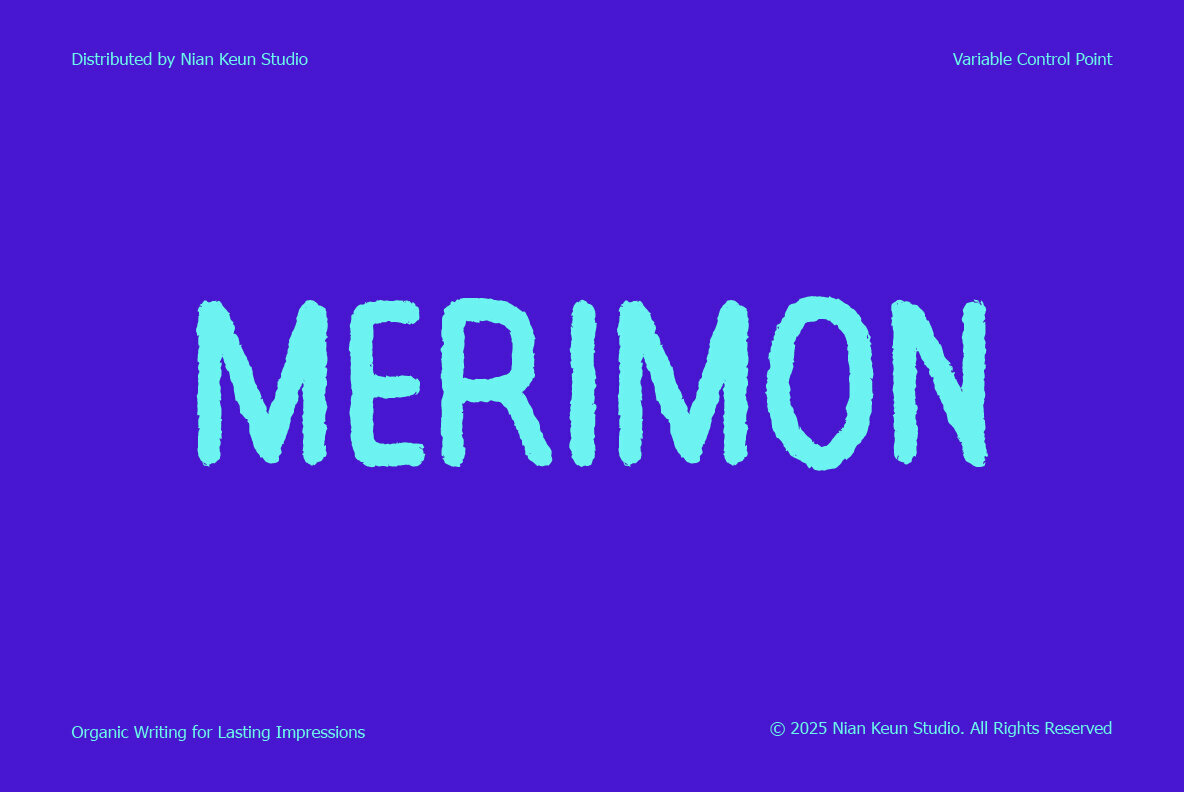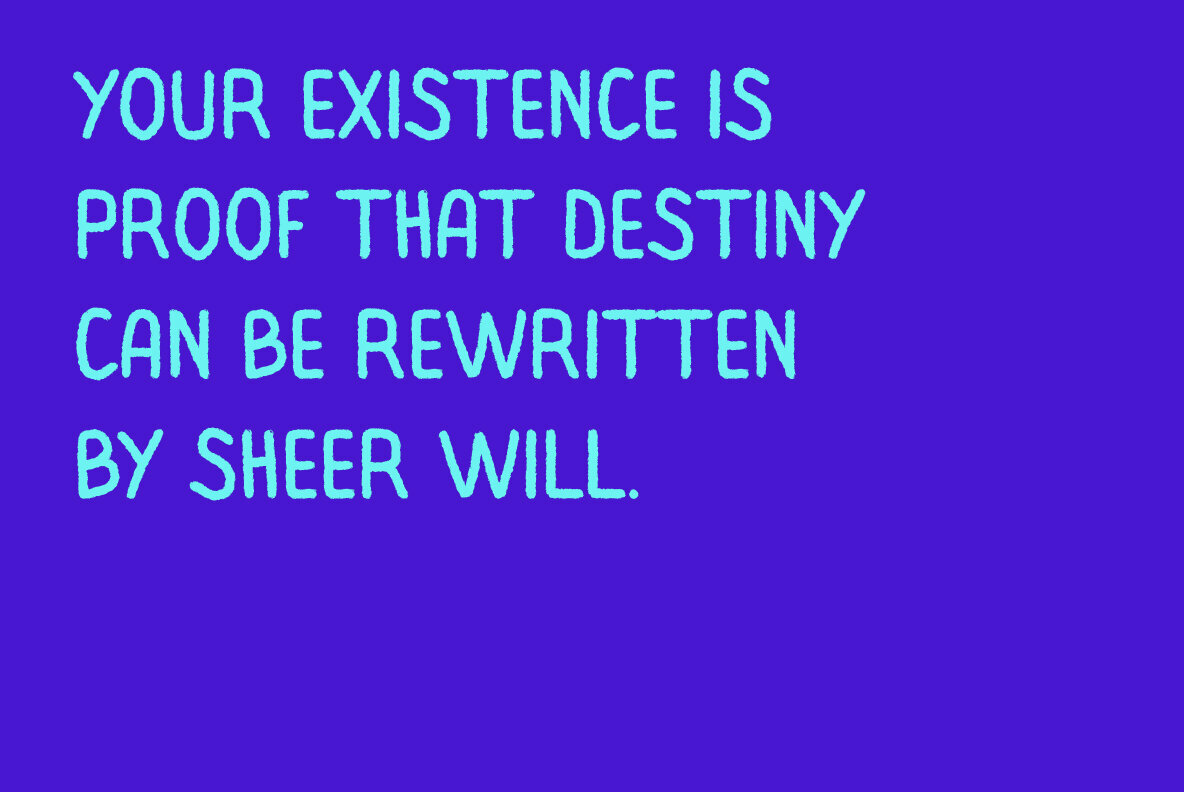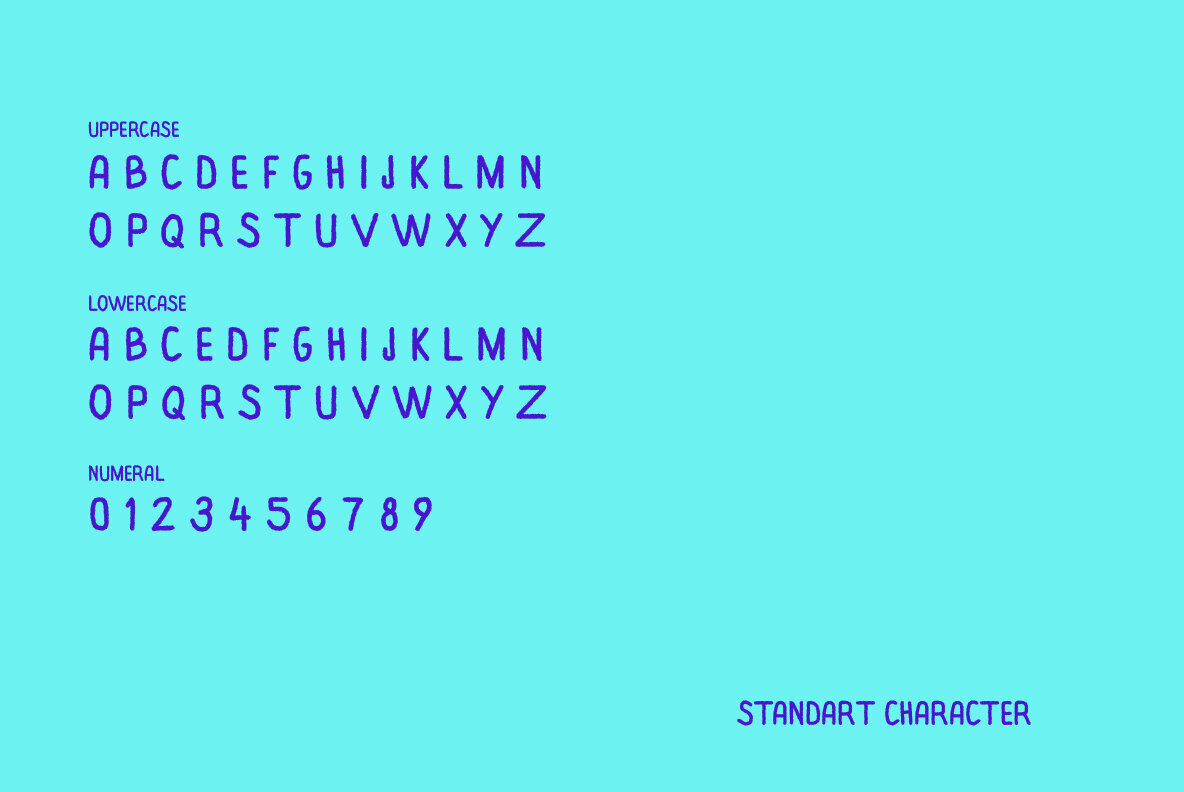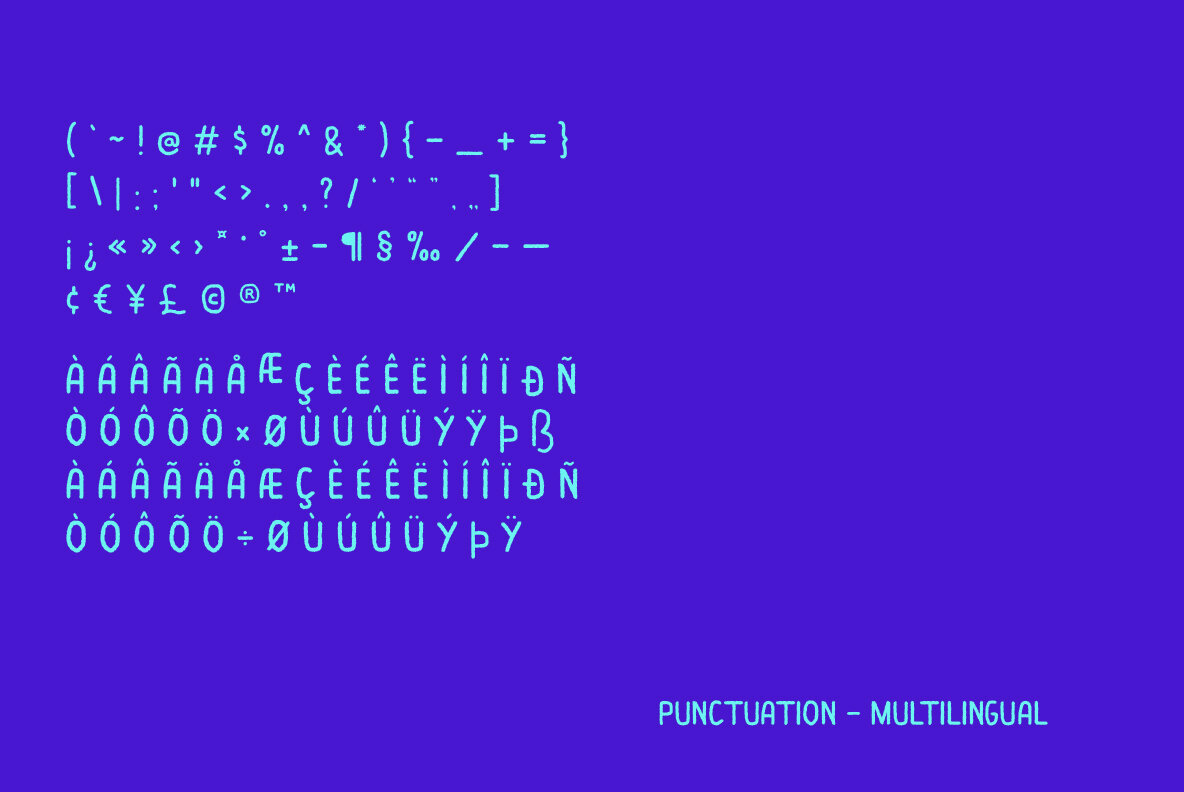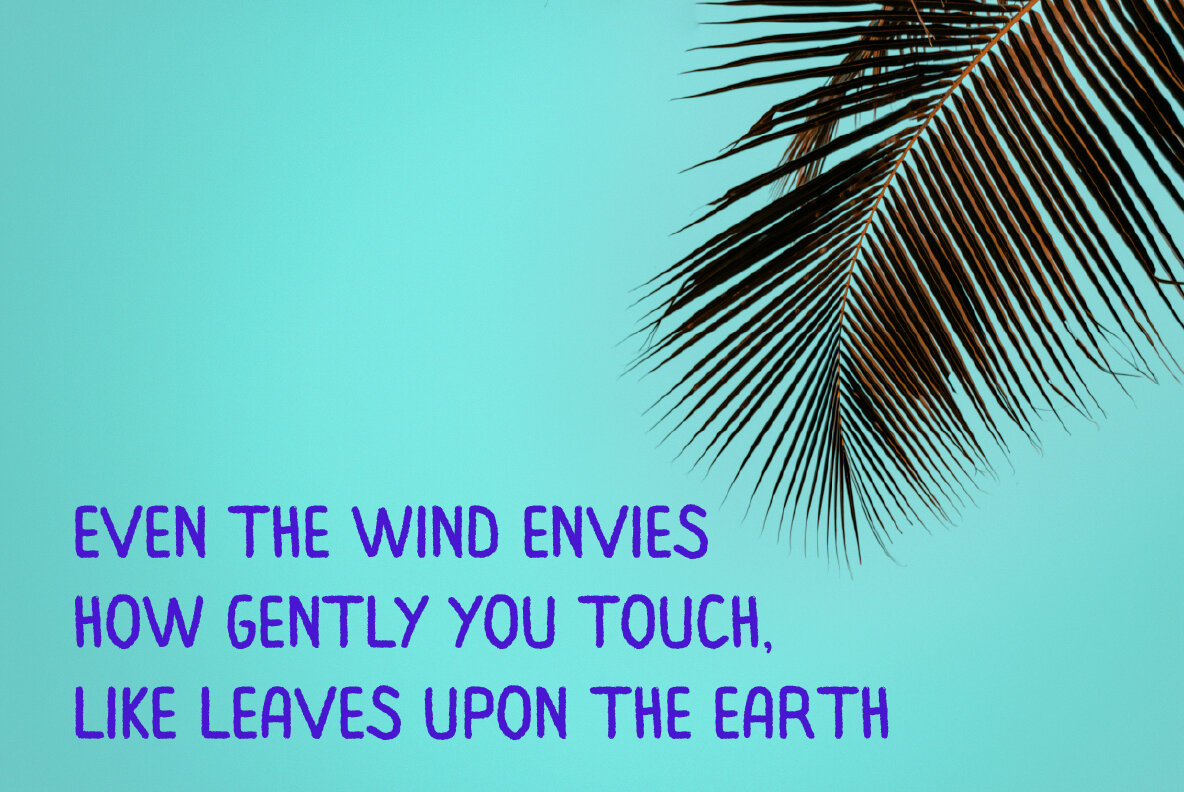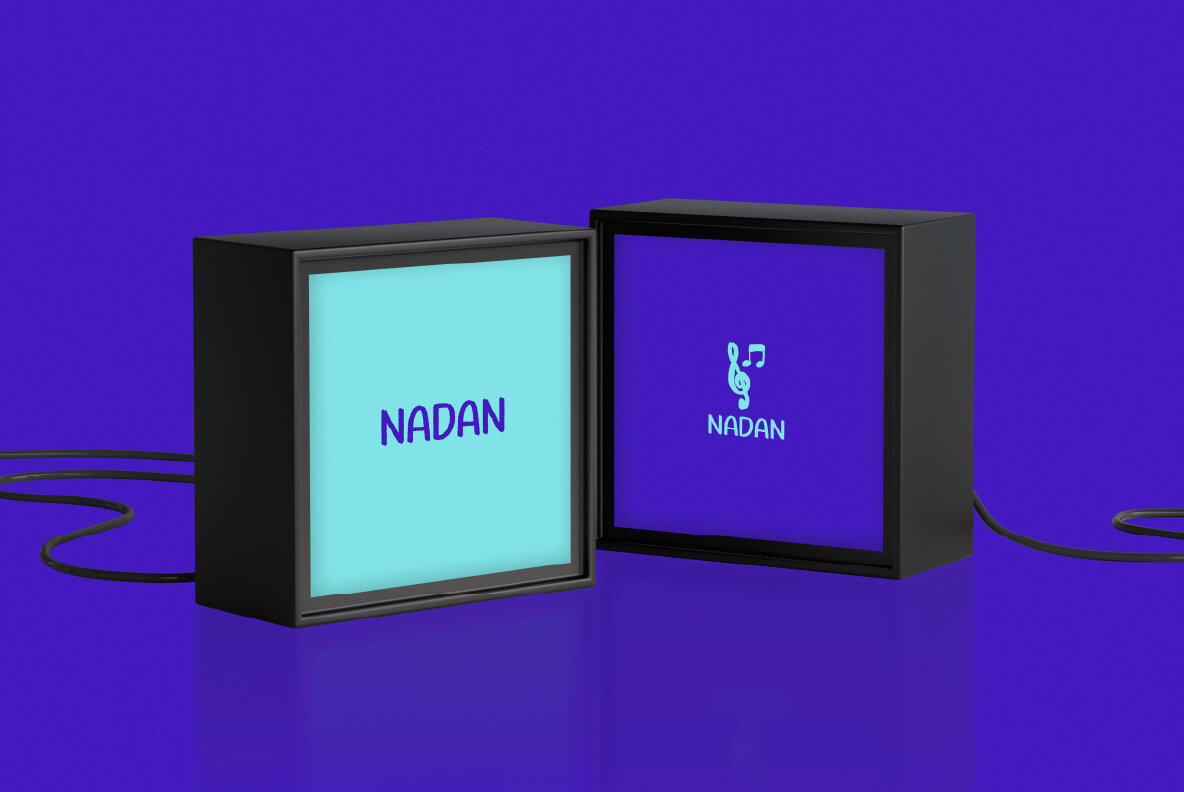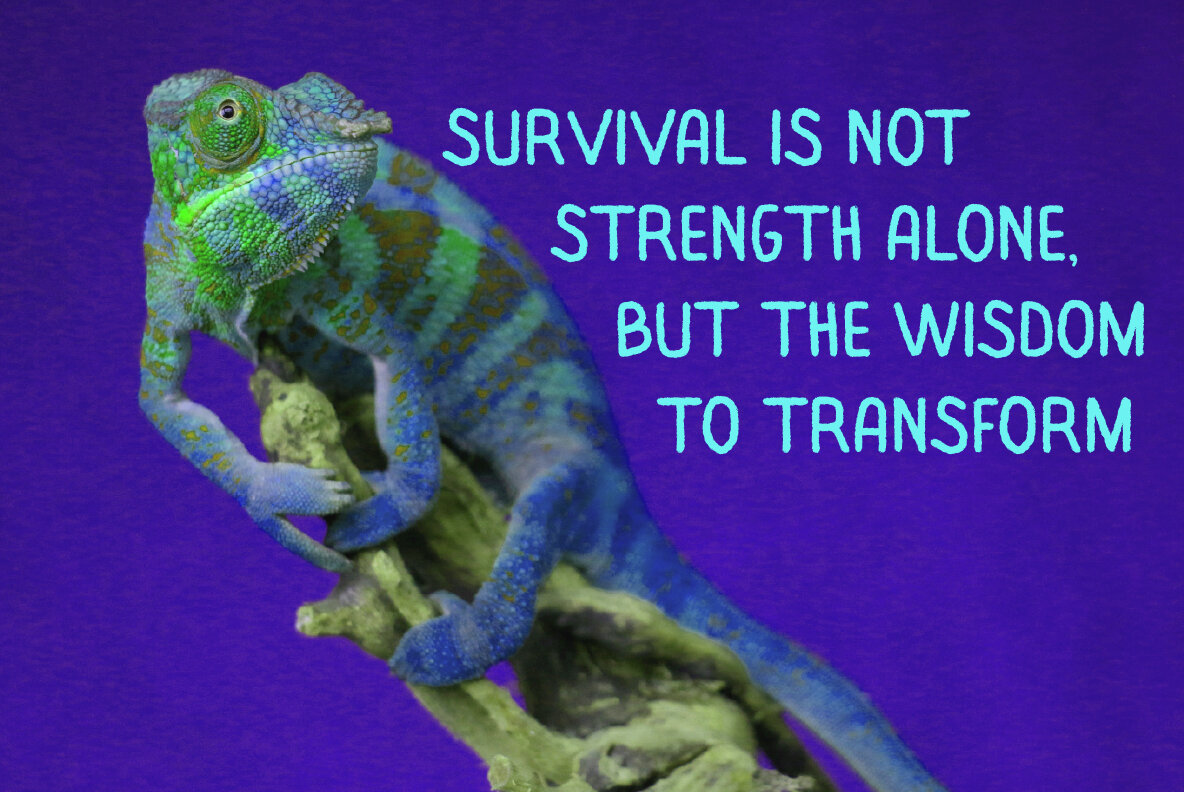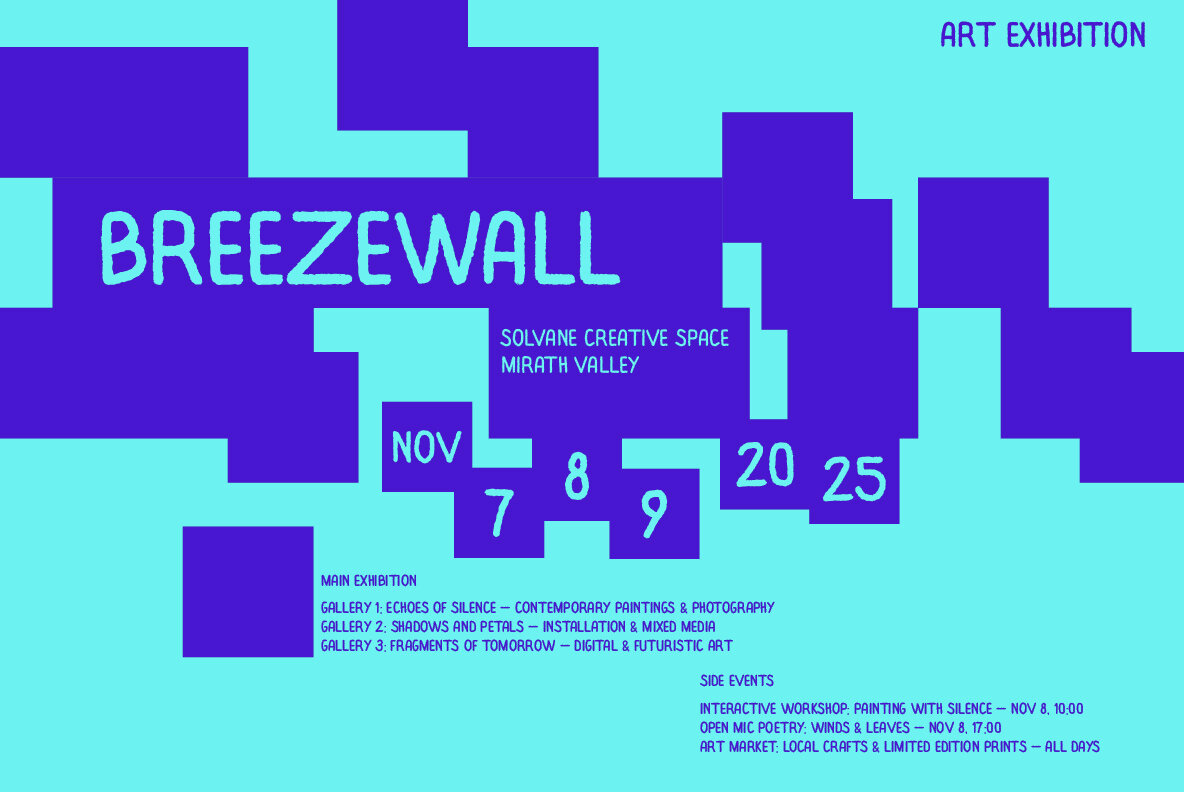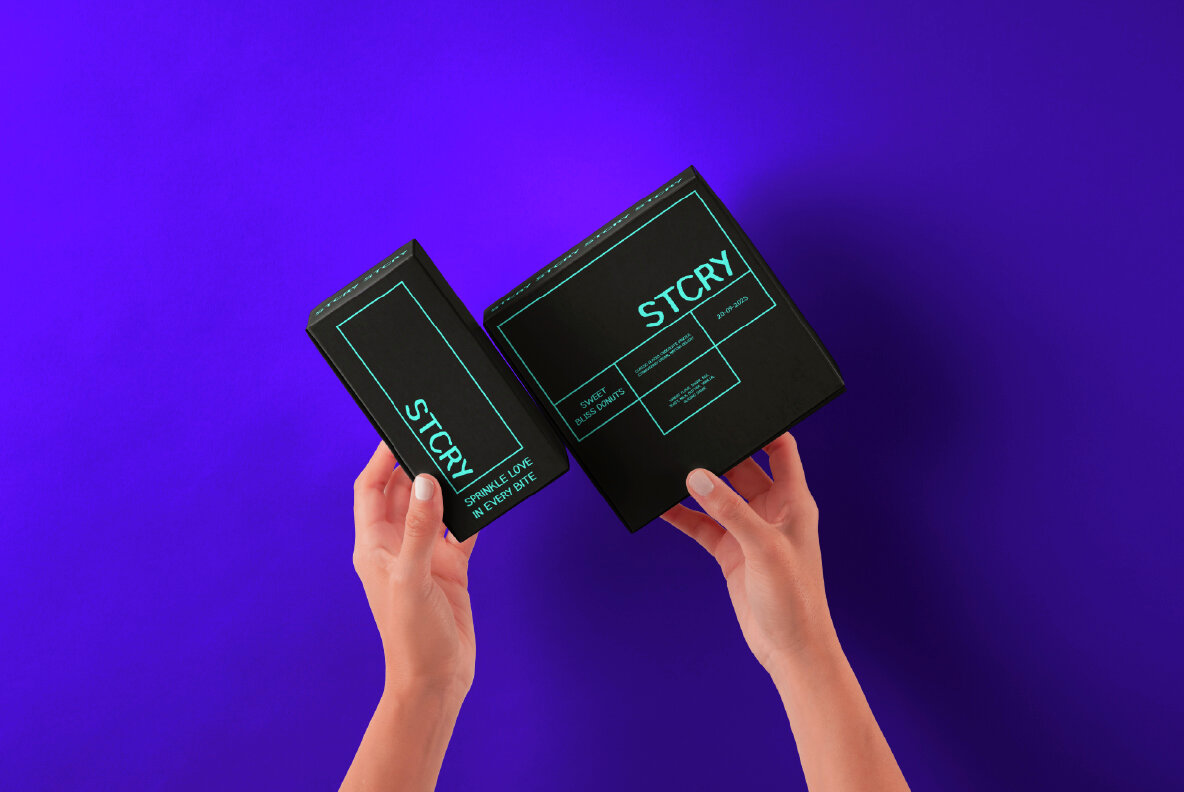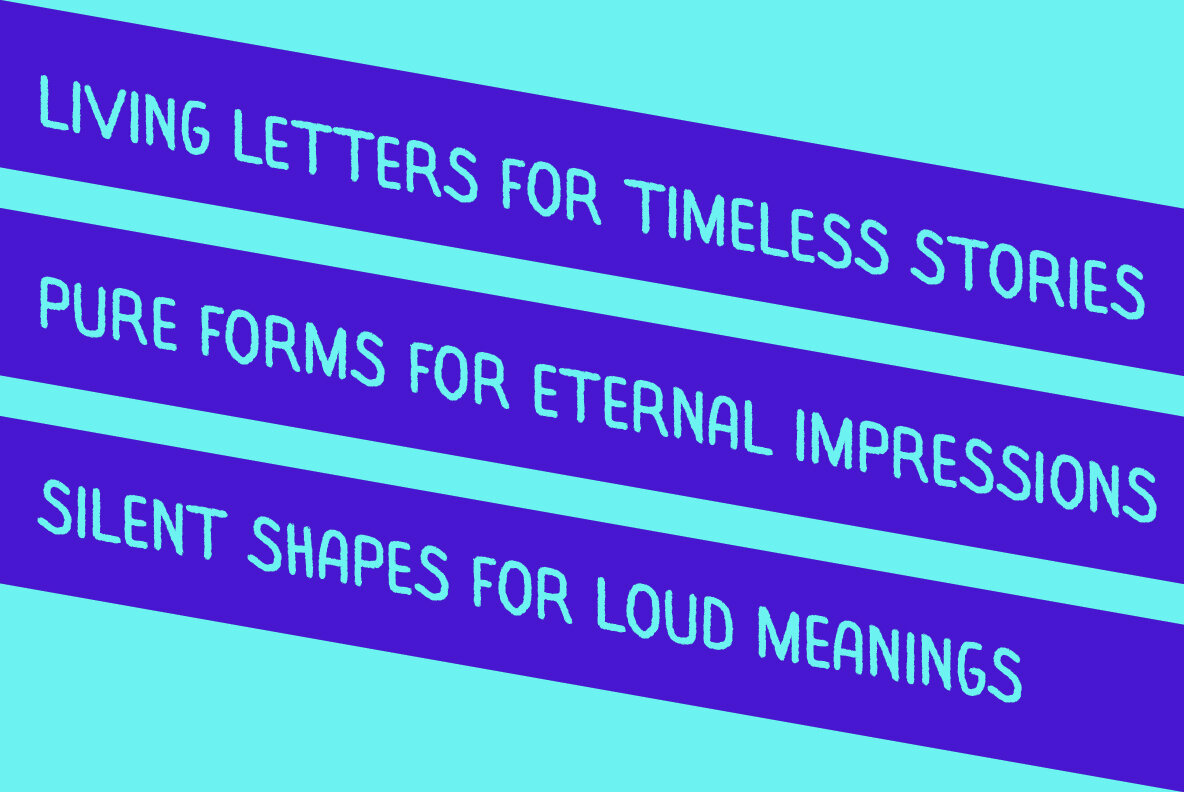
Merimon
Merimon is a raw yet refined handwritten display font, designed to embody organic texture and authentic imperfection. Each stroke feels hand-shaped, giving your designs a natural voice that breaks away from sterile, mechanical typefaces. With its Variable Control Point system, Merimon adapts effortlessly—whether you need tight compositions for bold headlines or looser spacing for expressive layouts. This flexibility makes it a reliable choice for modern creatives who want fonts that breathe character while staying practical. Font Features - Authentic hand-crafted appearance - Strong display presence with organic edges - Adjustable proportions with Variable Control Point - Versatile for both digital and print mediums - Unique, lasting impressions in every use Perfect For - Branding & logos - DIY product packaging - Creative posters & flyers - Children’s media & playful visuals - Social media templates with attitude